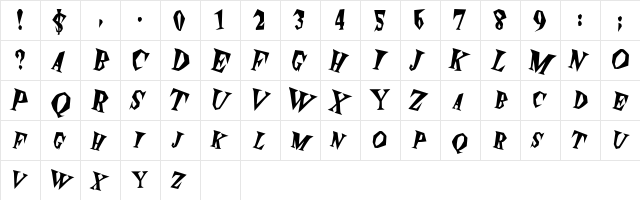
Spunk BoldItalic
Design Context for Spunk Typeface
Spunk is a composed and adaptable typeface that performs quietly and consistently across a wide range of design contexts. The slanted form adds forward momentum and visual energy. The heavy weight commands attention and anchors typographic hierarchies.
Pro Tip: Try Spunk for annotation and caption copy alongside an upright companion — the contrast in angle creates a dynamic but ordered typographic system.